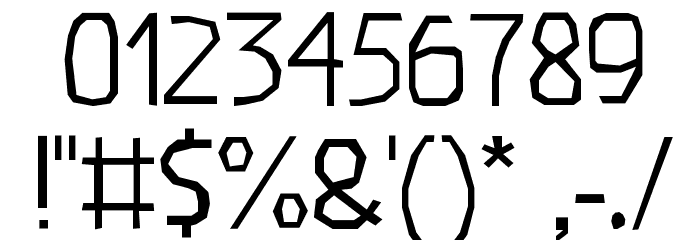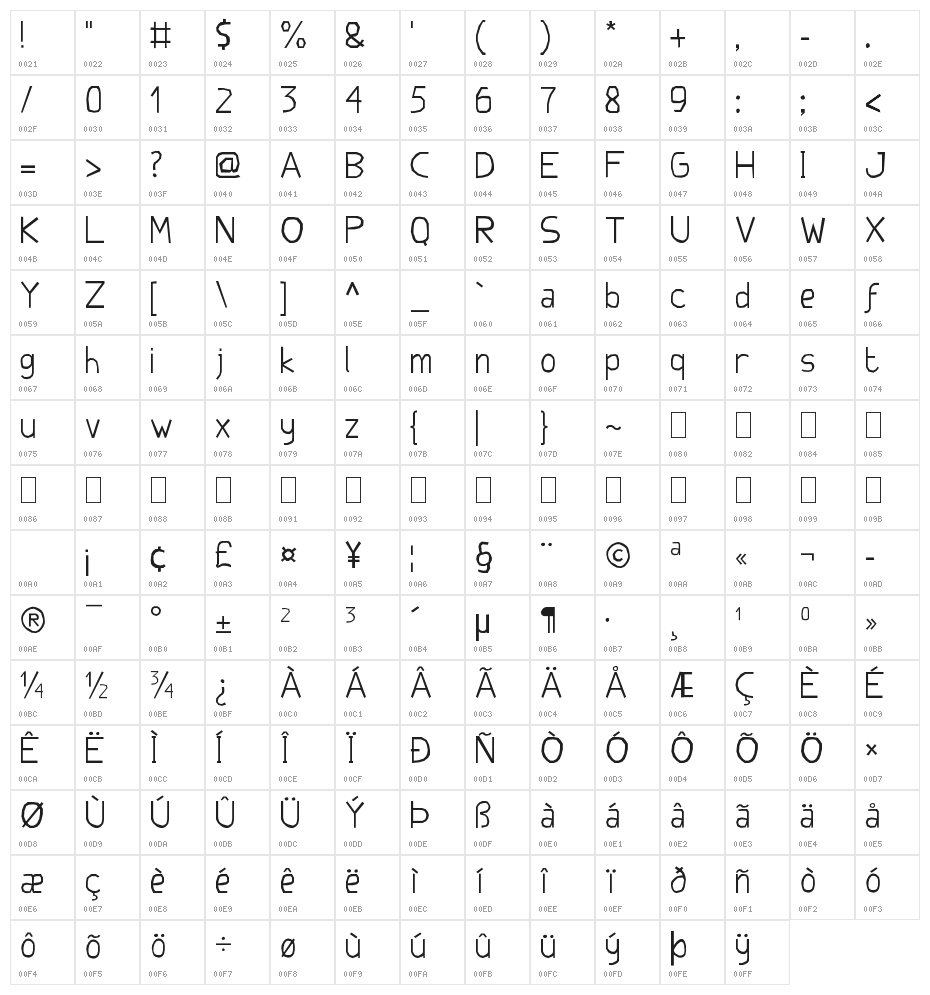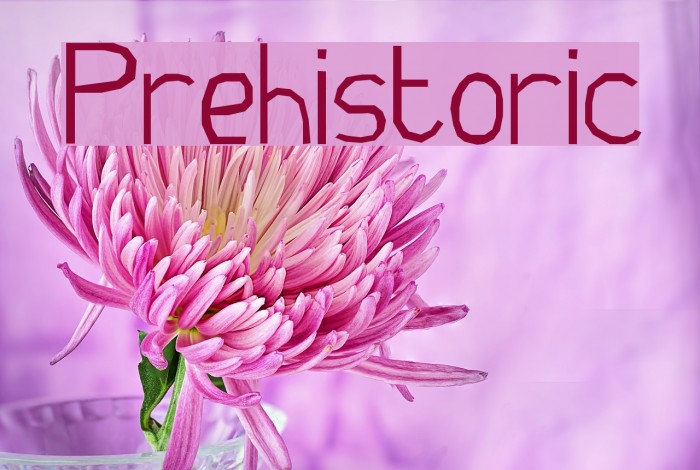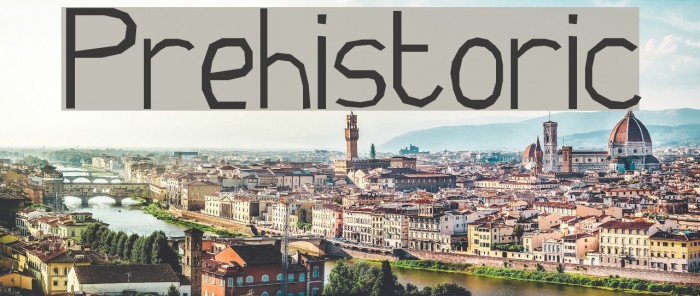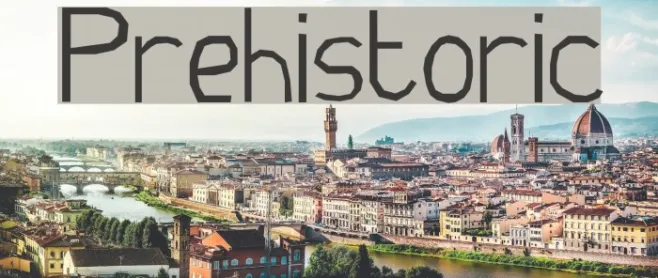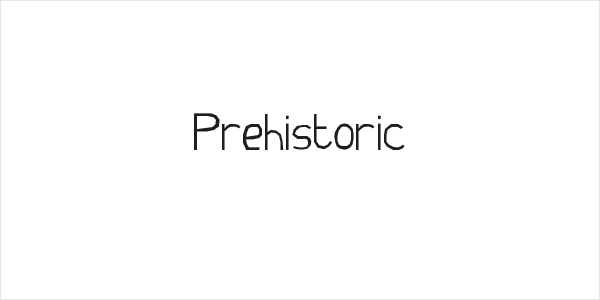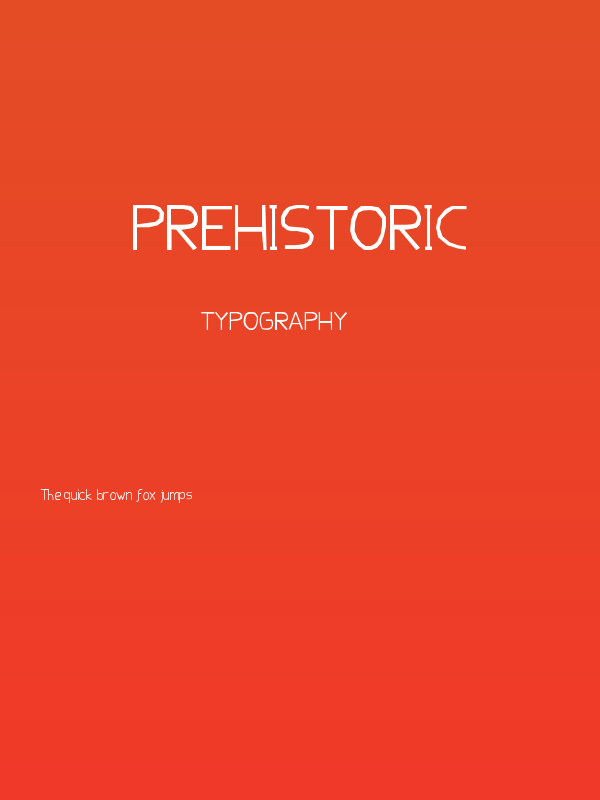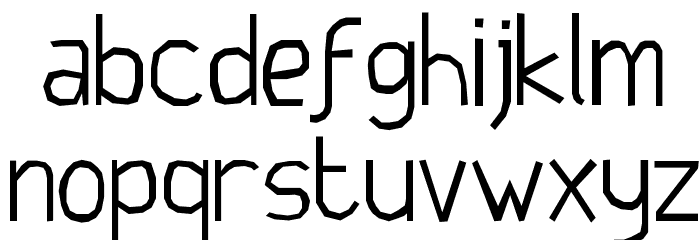
Prehistoric Font
Prehistoric Description
This font features a distinctive, angular design that evokes a primitive, hand-carved aesthetic. The characters are formed with straight lines and sharp angles, giving it a rugged and raw appearance. The uppercase and lowercase letters maintain a consistent style, with a slightly uneven stroke that adds to its prehistoric charm. The numerals and special characters follow the same design principles, ensuring a cohesive look across all glyphs. This font's unique style makes it stand out, offering a bold and unconventional choice for creative projects.
| Overall Style | Primitive, Rustic |
| Proposed Projects | Ideal for projects that require a rustic or ancient theme, such as historical documentaries, themed event posters, or educational materials about early human history. |